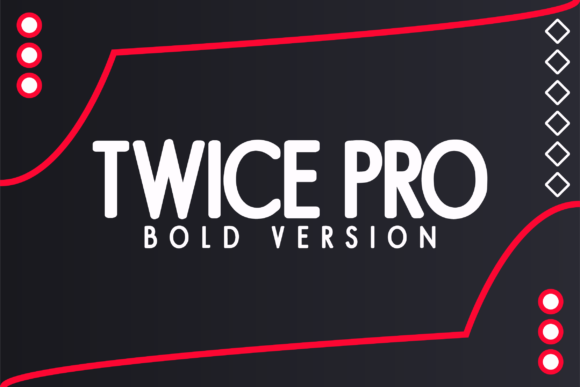
Unleash your creativity with Twice Pro Bold, the font that captivates with its modern geometric style. This stunning sans serif font, brought to life by the skilled designers at Huntype, is a visual delight that adds a touch of sophistication to any design project.
Imagine your words taking on a life of their own as they dance across the page in Twice Pro Bold's elegant curves and sharp angles. With its clean lines and timeless aesthetic, this font exudes professionalism and leaves a lasting impression on your audience. Whether you're crafting brochures, presentations, website designs, or social media graphics, Twice Pro Bold is the perfect choice to elevate your message and make it truly unforgettable.
Step into a world of versatility with Twice Pro Bold. This font's adaptability knows no bounds, seamlessly transitioning from formal settings to playful designs. Its wide range of weights and styles allows you to fine-tune your creations, ensuring that your message is conveyed with precision and impact. Unleash your imagination and let Twice Pro Bold transform your ideas into captivating visual masterpieces.
Immerse yourself in the beauty of Twice Pro Bold's meticulously crafted details. Each letterform has been meticulously designed to ensure readability, clarity, and visual appeal. Experience the joy of effortless composition as your words flow harmoniously onto the page, creating a seamless reading experience for your audience. With Twice Pro Bold, your designs will radiate elegance and refinement that will leave your audience spellbound.